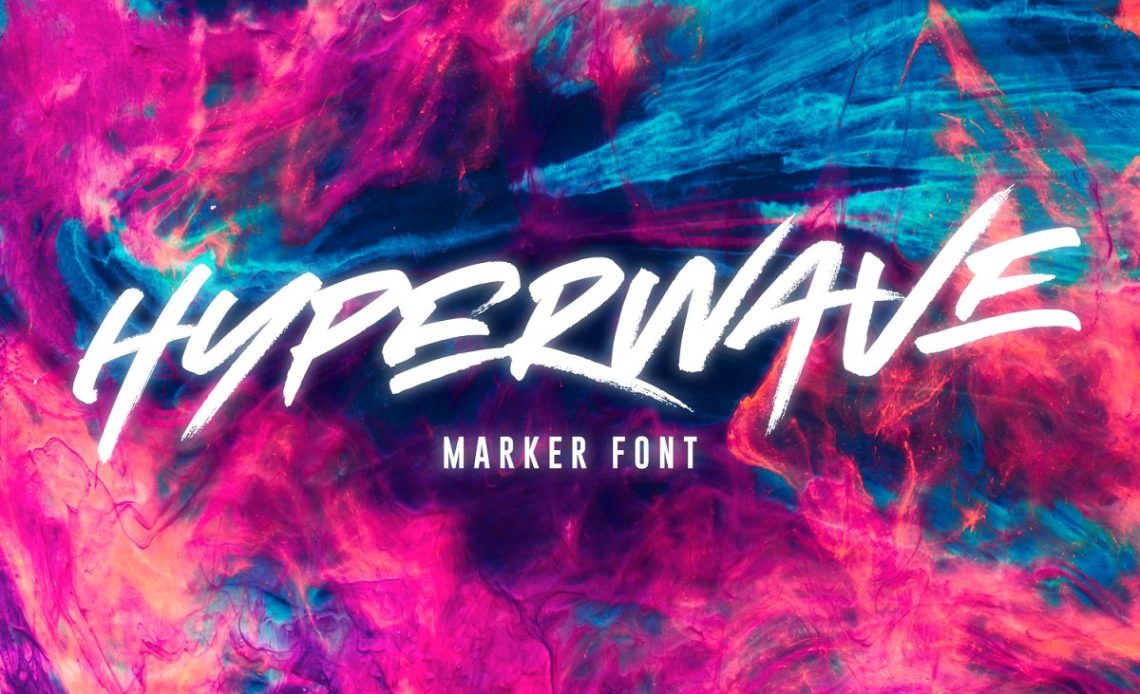
Looking for the best font for sheet music? Look no further than HYPERWAVE Marker Font, created by the talented Sam Parrett! This energetic set of brush fonts will crank up the intensity of your designs and make a bold statement on your logo designs, brand imagery, handwritten quotes, product packaging, merchandise, music projects, and social media posts.
With THREE sets of each letter, each equipped with distinctive fast brush strokes, HYPERWAVE is a versatile font family that offers endless options for customization. Your download includes three font files: Hyperwave One, Hyperwave Two, and Hyperwave Three.
Hyperwave One is a handmade marker pen font that contains uppercase characters only, numerals, and a large range of punctuation. Meanwhile, Hyperwave Two and Three are second and third versions of Hyperwave, each with a completely new set of uppercase characters. This means you can avoid letters looking the same each time you recreate a custom-made style, or try a different word shape, by simply switching to these fonts for additional layout options.